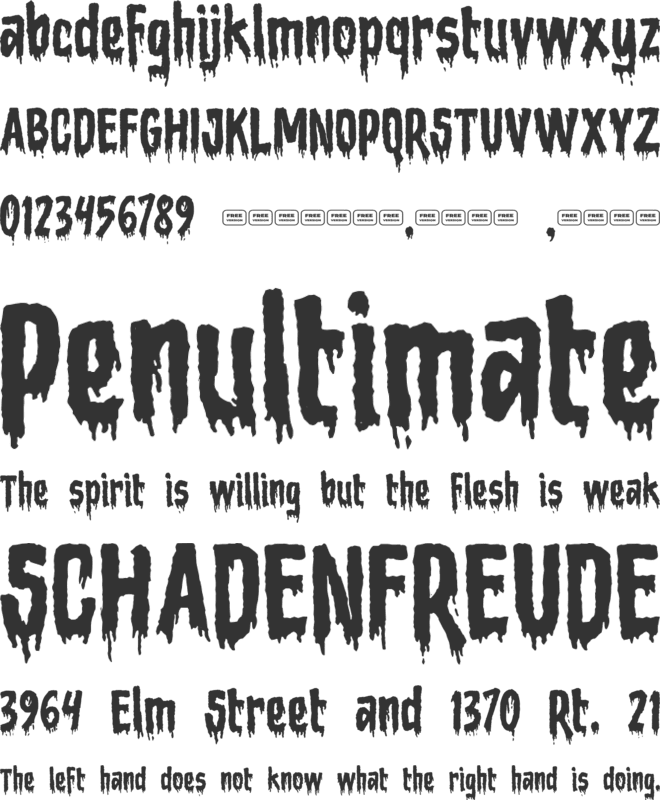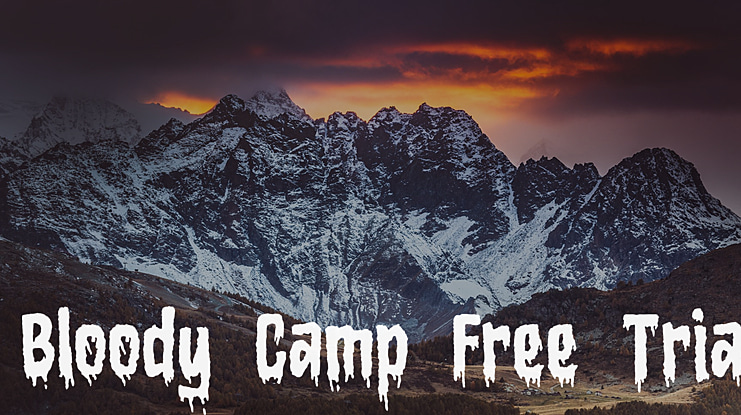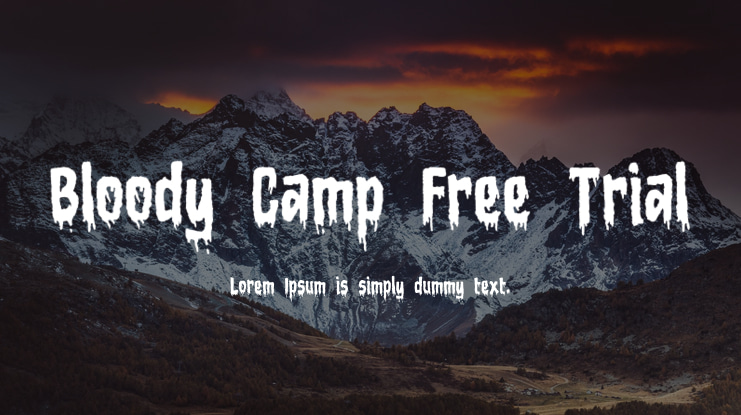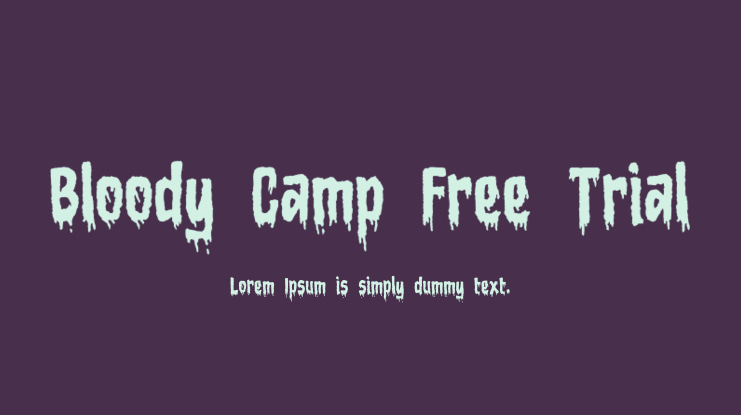
Bloody Camp Free Trial Font
Bloody Camp is a horror blood font.Bloody Camp has a scary look and feel which makes it a great Halloween or thriller themed font.Suitable for Horror Game, Spooky T-shirts or crafts, Halloween Invitation, and many more.Full Version Download Here :https://typefactory.co/product/bloody-camp-a-horror-blood-font/https://www.creativefabrica.com/product/bloody-camp/ref/501262/